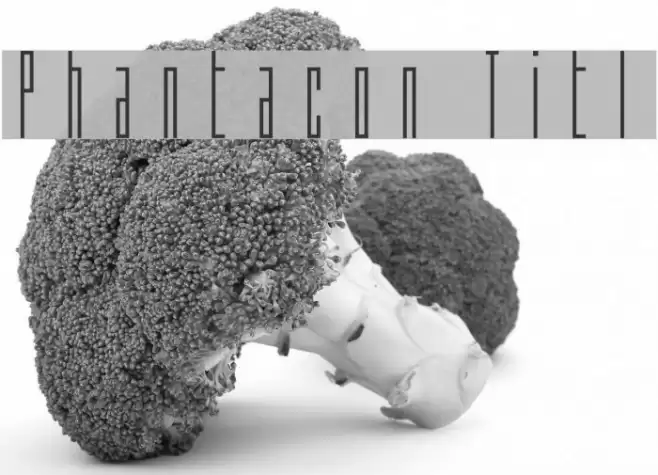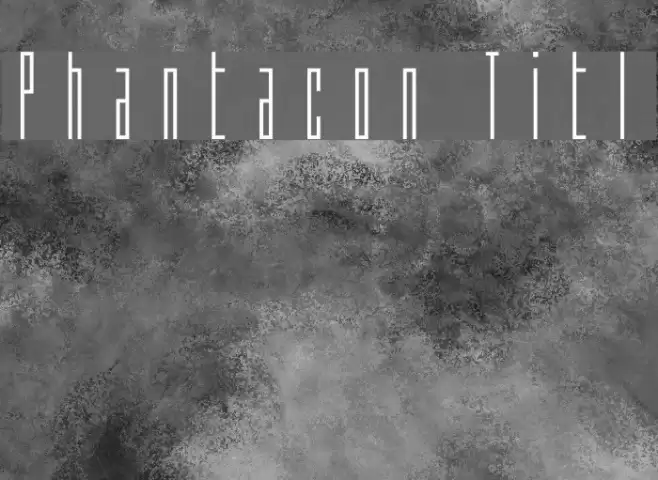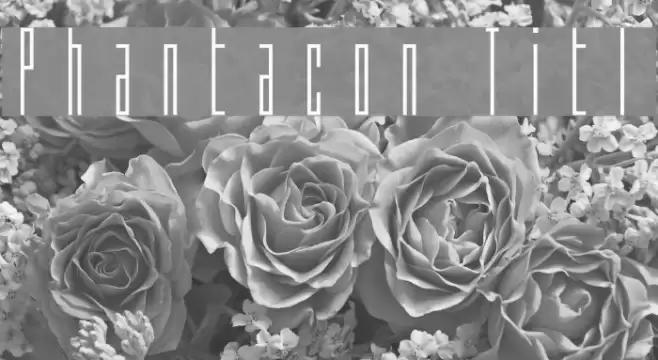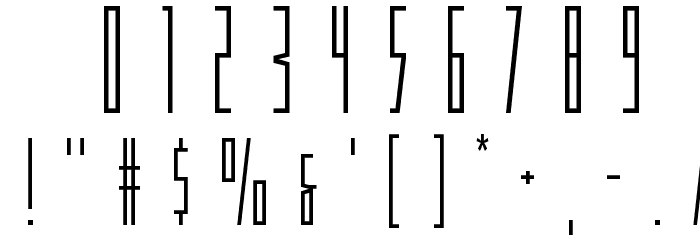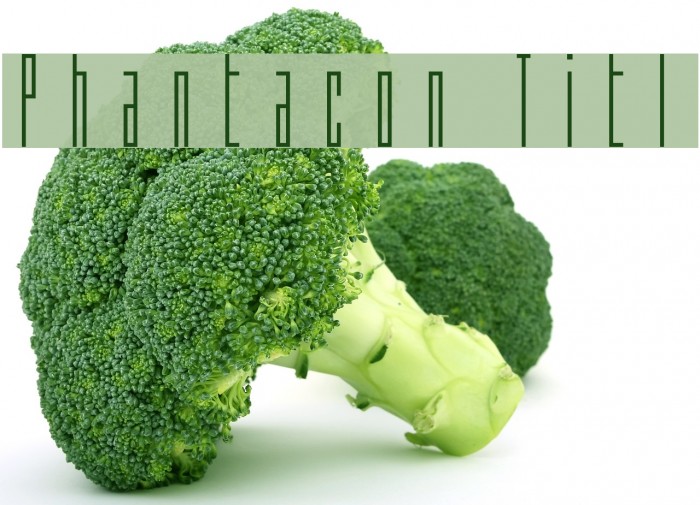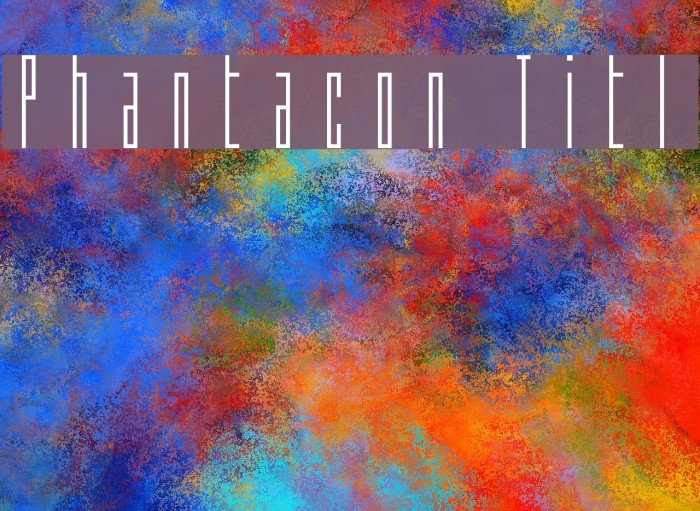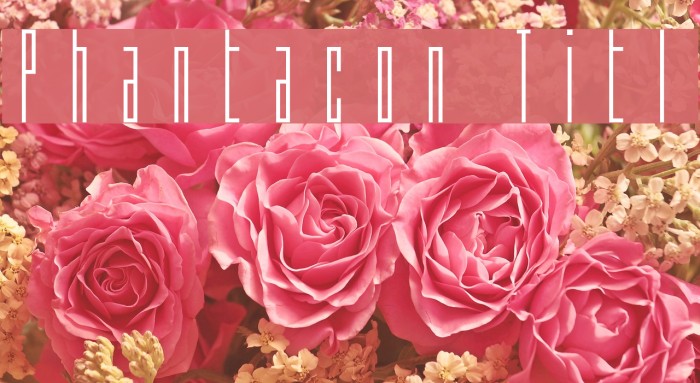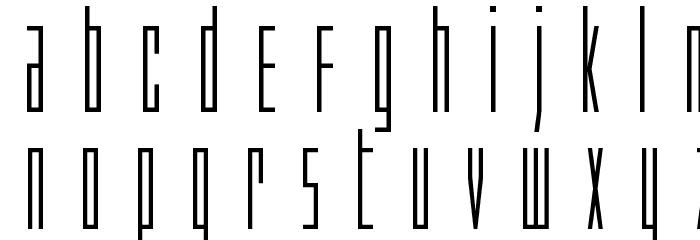
Phantacon Title Font
Phantacon Title Description
This font features a tall, narrow design with a futuristic and geometric aesthetic. The characters are elongated and have a consistent vertical alignment, giving a sleek and modern appearance. The uppercase and lowercase letters share a similar height, enhancing the uniformity of the font. The strokes are thin, with minimal variation in thickness, contributing to a clean and precise look. The font's unique style is evident in its angular edges and sharp corners, which add a distinctive edge to the overall design. The numerals and special characters maintain the same stylistic elements, ensuring cohesion across all glyphs.
A tall, narrow, and futuristic font with geometric elements and sharp edges from Uncategorized fonts.
- Proposed Projects: Ideal for sci-fi themed projects, modern branding, technology-related designs, and futuristic posters.
- Character Spacing: Tight